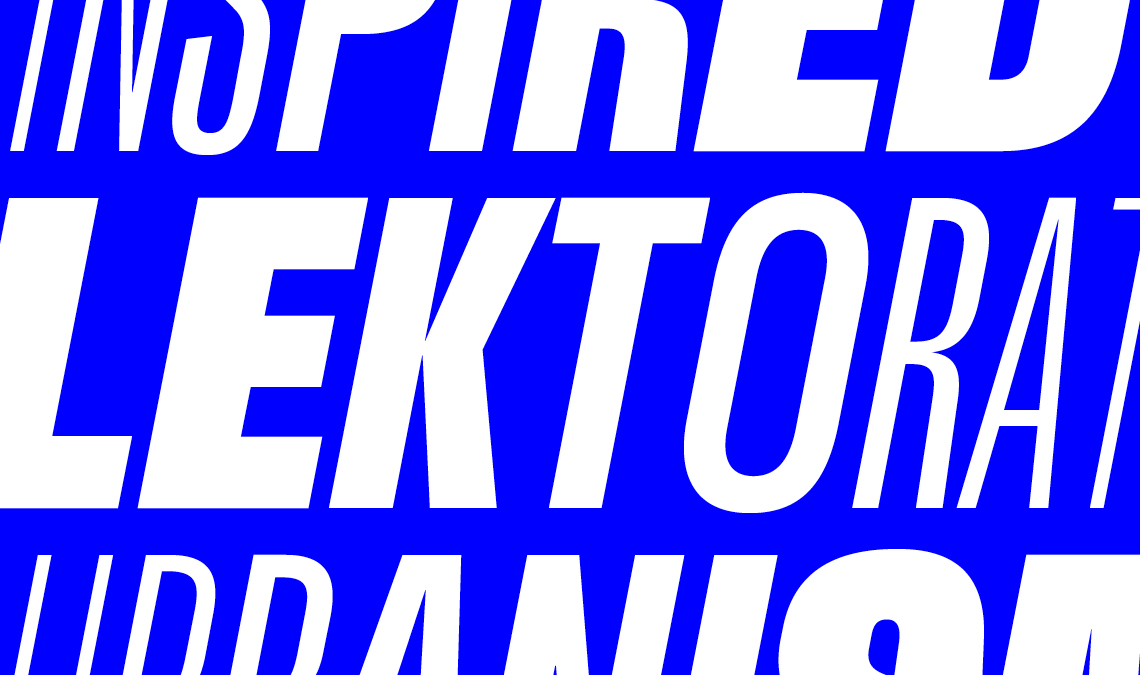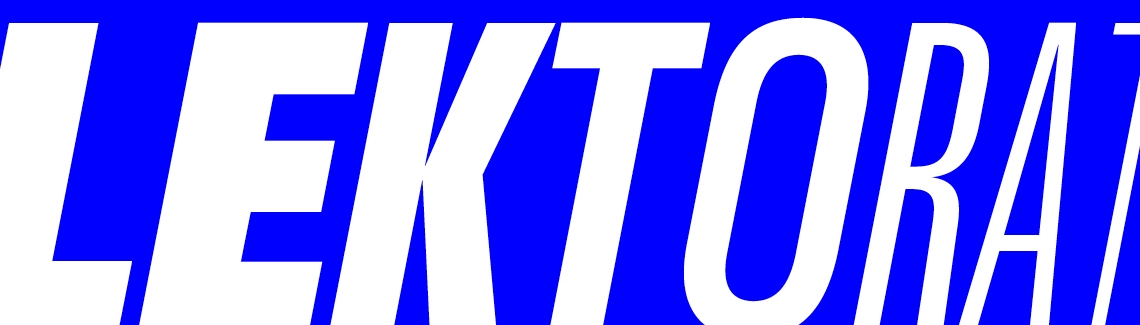
Lektorat oblique styles released
Lektorat Obliques now available to inform and entertain more persuasively.
Since Lektorat’s initial release, 2019 Gerard Unger Scholarship winner Florian Fecher has been quietly adding oblique styles to expand his family. You’ve loved its headline-busting voice, so let’s get straight to the release — get the 21 new oblique styles (or the variable font) now!